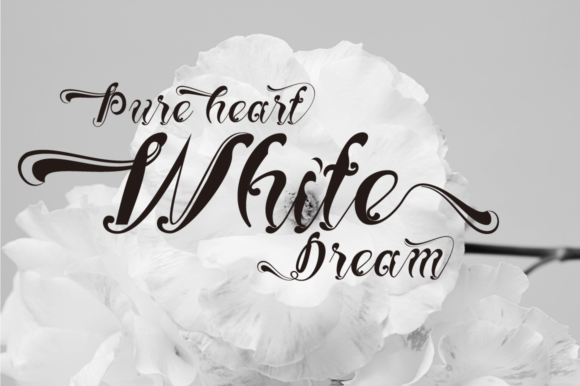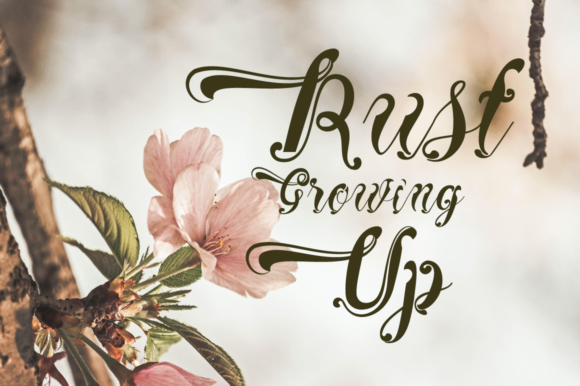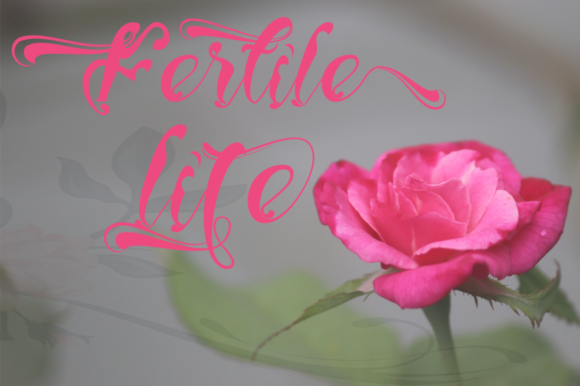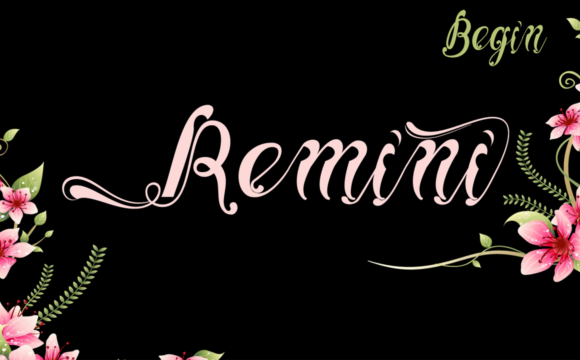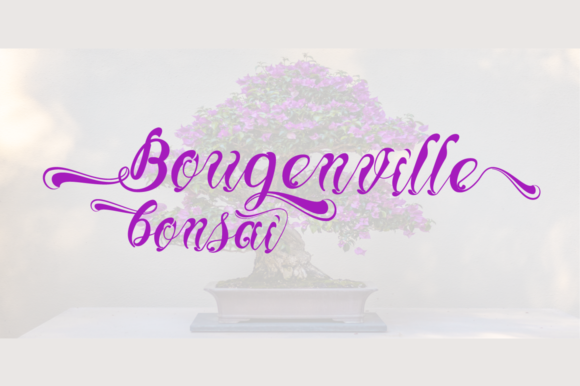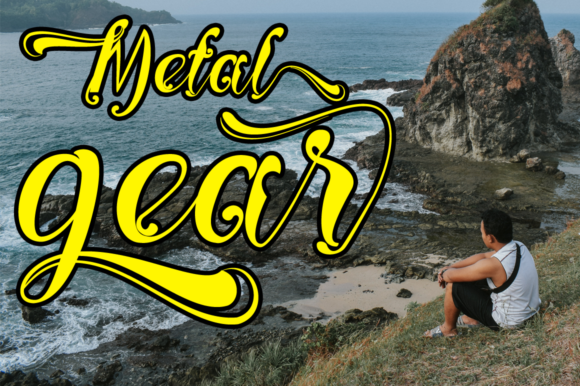
Brianna Font: Elevate Your Design with Luxury and Elegance
Are you looking for a font that exudes luxury and sophistication? Look no further than the stunning Brianna font. This lovely script font is designed to add a touch of elegance to any design project, making it perfect for crafters, designers, and anyone looking to create something truly special.
The Beauty of Brianna Font
Brianna font is a beautiful script font that boasts a range of amazing features. Its elegant and flowing lines make it perfect for creating designs that require a touch of sophistication and luxury. Whether you’re working on a branding project, creating a stunning invitation, or designing a beautiful website, Brianna font is sure to impress.
One of the standout features of Brianna font is that it is PUA (Private Use Area) encoded. This means that you can access all of the amazing glyphs and ligatures with ease, giving you even more creative freedom to produce stunning designs. With PUA encoding, you can easily access the font’s extensive range of characters, including swashes, alternates, and ligatures, making it easy to create unique and eye-catching designs.
Brianna font is perfect for designers and crafters who want to add a touch of luxury to their work. Whether you’re creating digital designs or handmade crafts, this font is sure to elevate your work to the next level. Its versatility and range make it suitable for a wide range of projects, including:
- Website design and development
- Sign making and vinyl design
- Handmade crafts and DIY projects
Why Choose Brianna Font?
So why choose Brianna font for your next design project? Here are just a few reasons why this font stands out:
- Luxury and elegance: Brianna font exudes luxury and sophistication, making it perfect for high-end designs.
- PUA encoding: With PUA encoding, you can easily access the font’s extensive range of characters, giving you even more creative freedom.
- Versatility: Brianna font is suitable for a wide range of projects, from digital designs to handmade crafts.
Tips for Using Brianna Font
Here are a few tips for using Brianna font in your designs:
- Pair it with a sans-serif font: Pairing Brianna font with a sans-serif font can create a stunning contrast and add visual interest to your design.
- Experiment with glyphs and ligatures: With PUA encoding, you can easily access the font’s extensive range of glyphs and ligatures. Experiment with different combinations to create unique and eye-catching designs.
- Use it for headlines and titles: Brianna font is perfect for headlines and titles, where its luxury and elegance can really shine.
In conclusion, Brianna font is a stunning script font that is sure to elevate your design projects to the next level. With its luxury and elegance, PUA encoding, and versatility, it’s perfect for designers and crafters who want to create something truly special. Whether you’re working on a branding project, creating a stunning invitation, or designing a beautiful website, Brianna font is sure to impress.